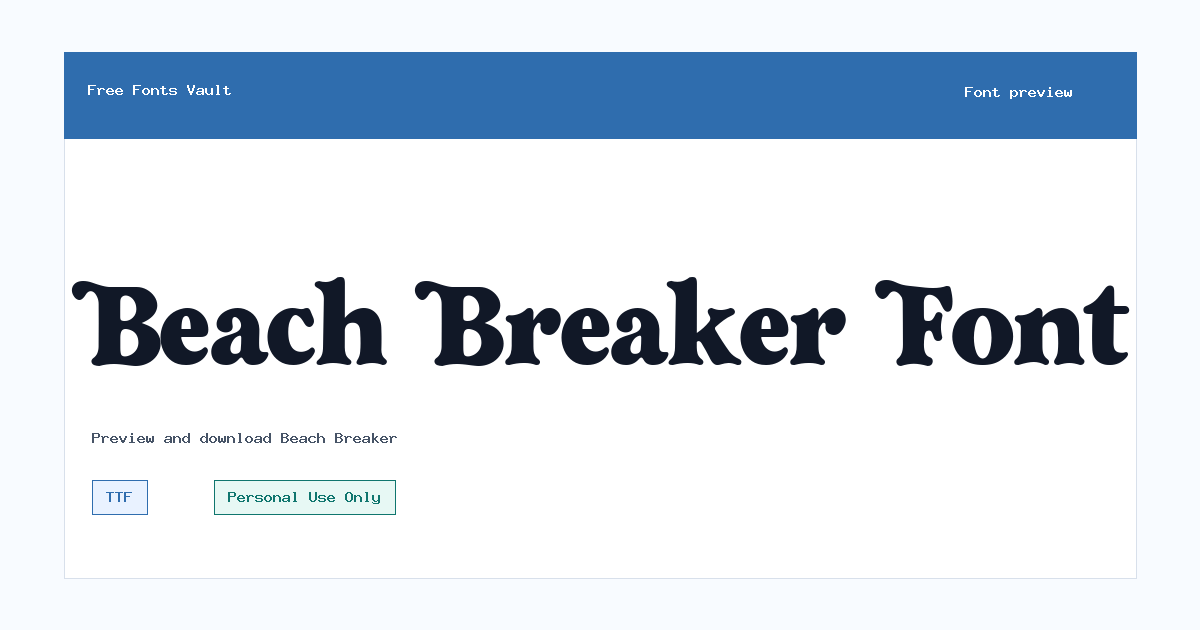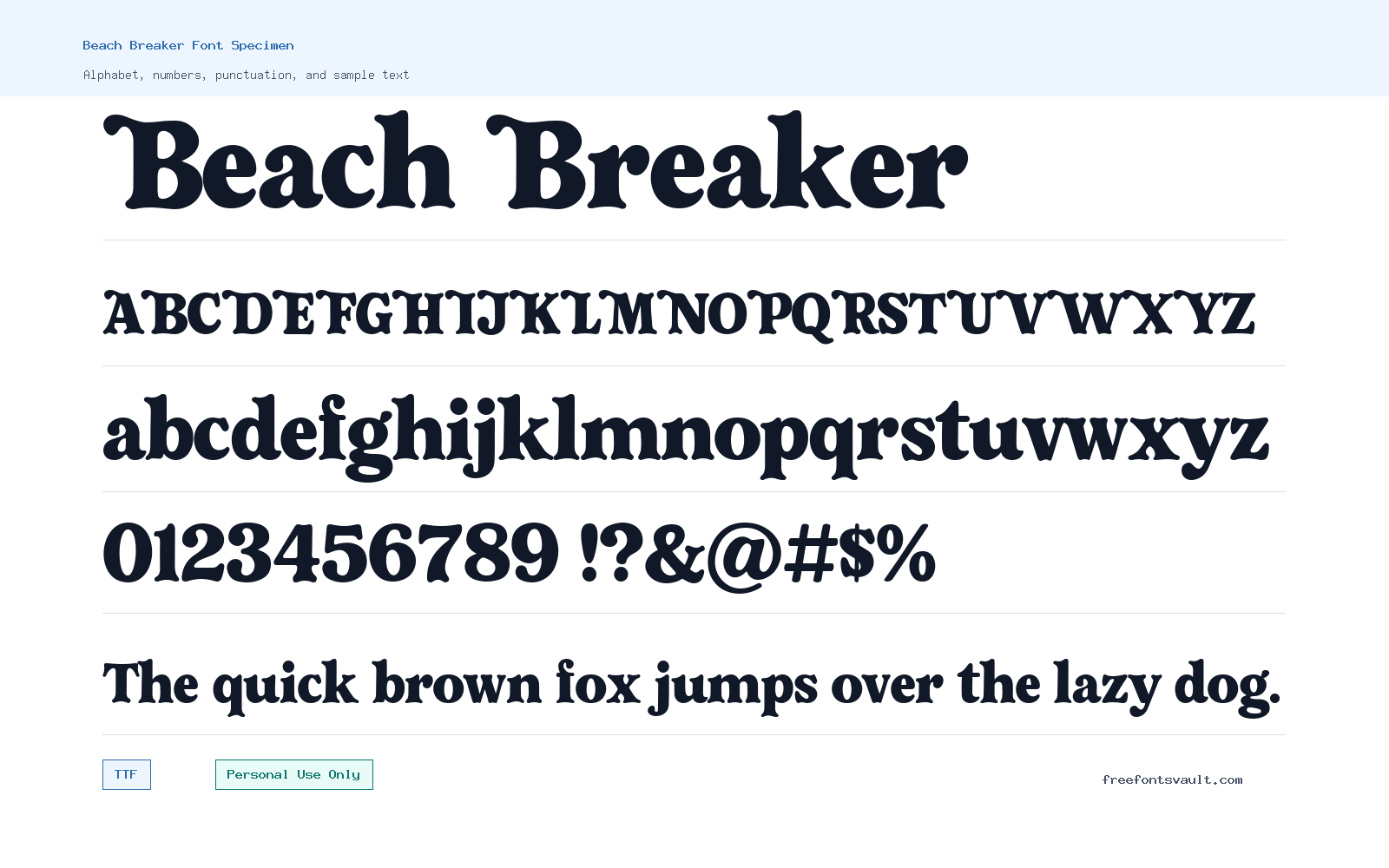
Beach Breaker
Beach Breaker includes 4 downloadable variants for live preview and testing.
Beach Breaker font.
Beach Breaker is a serif font family for personal-use projects, with upright, italic, bold, and bold italic TTF files for testing headlines, names, quotes, and short display text.
About Beach Breaker Font
Beach Breaker gives visitors a small but useful serif family to try before downloading. The family includes regular, italic, bold, and bold italic styles, so you can test both plain text and stronger title treatments without switching to a separate typeface. Because the confirmed information is limited, the safest way to judge its look is to use the preview tool with your own words, especially if you plan to use it for a logo-style title, poster headline, invitation, or social graphic.
For best results, start with short text. Try a brand name, event title, menu heading, quote, or two-line layout and compare the regular style against the bold version. The italic styles can help with emphasis, subtitles, pull quotes, or decorative name treatments, but they should still be checked at the exact size you intend to use. If you are setting longer paragraphs, test spacing and readability first, as many serif display families work better in titles than in dense body copy.
- Serif font family structure suited to short display text and preview testing
- Personal posters, invitations, cards, and social media graphics
- Short headings, names, quotes, and decorative title layouts
What is Beach Breaker best used for?
It is best to test it in short settings such as headings, names, invitations, posters, quotes, and social graphics. Check longer text carefully before using it for paragraphs.